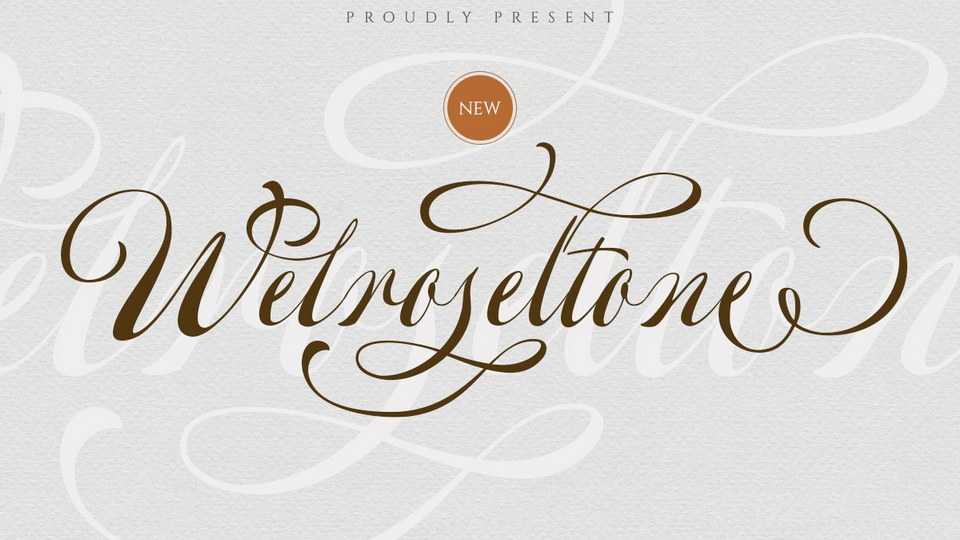
Download Welroseltone font, an exquisite handwritten typeface. Expertly designed to make your creation look out of this world, Welroseltone will look gorgeous on a variety of ideas.